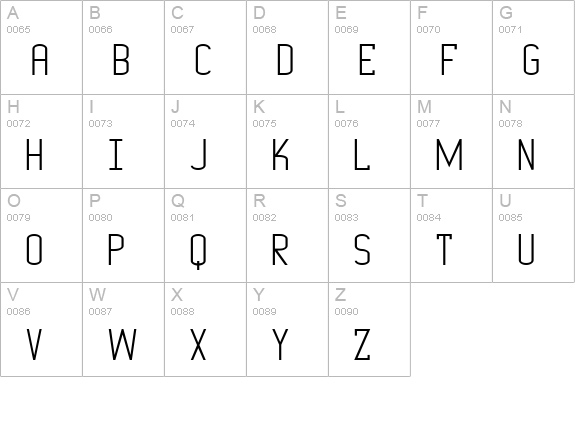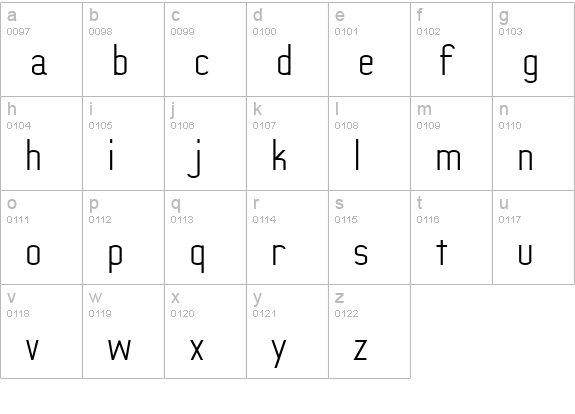
PeterPierre Plain Font Details
Introducing the PeterPierre Plain font, a masterpiece of simplicity and elegance. This font is perfect for adding a touch of sophistication to any design project. With its clean lines and timeless appeal, PeterPierre Plain font is a versatile choice that will never go out of style. What sets PeterPierre Plain font apart is not only its impeccable design, but also the fact that it is available for free. Yes, you read that right! This amazing font can be freely downloaded at FontsMarket.com, where you can find a vast collection of high-quality fonts to suit all your design needs. Whether you're working on a professional project or simply want to add a touch of class to your personal creations, PeterPierre Plain font is the ideal choice. Its legibility and versatility make it perfect for a wide range of applications, from branding and packaging to web design and print materials. The PeterPierre Plain font is designed with attention to detail, ensuring that each character is perfectly balanced and harmonious. Its simple yet refined style will instantly elevate your designs, making them stand out from the crowd. With PeterPierre Plain font, you have the freedom to express your creativity and bring your visions to life. Whether you're designing a logo, creating a poster, or crafting a website, this font will add a touch of sophistication and professionalism to your work. Don't miss out on this incredible opportunity to download the PeterPierre Plain font for free at FontsMarket.com. Join thousands of designers who have already discovered the beauty and versatility of this amazing font. Elevate your designs, unleash your creativity, and make a lasting impression with the PeterPierre Plain font.